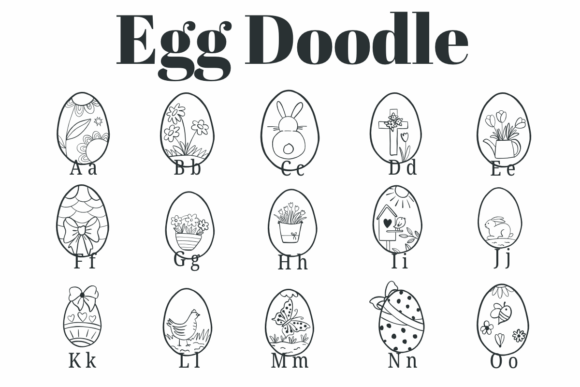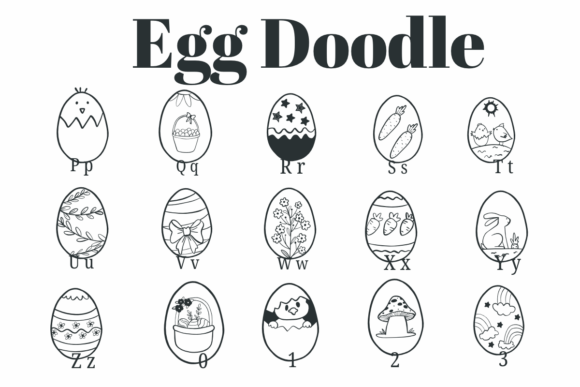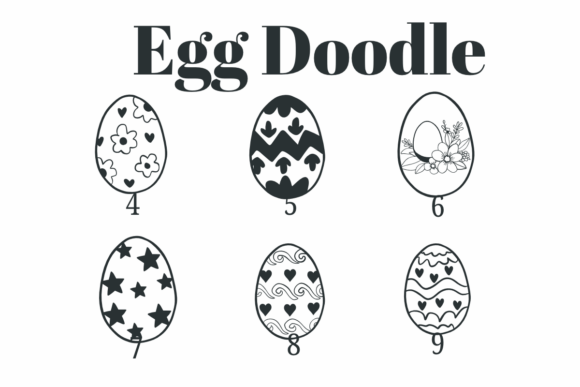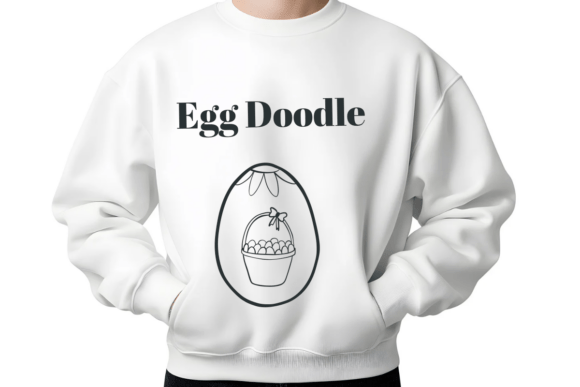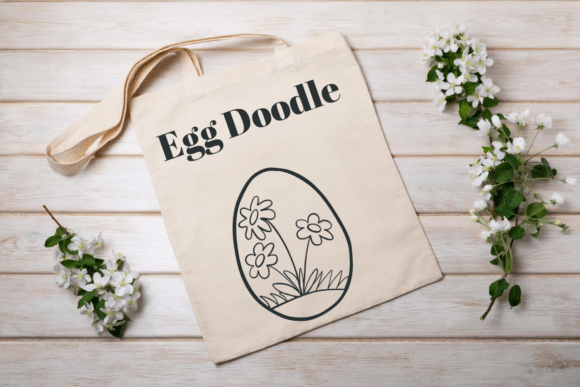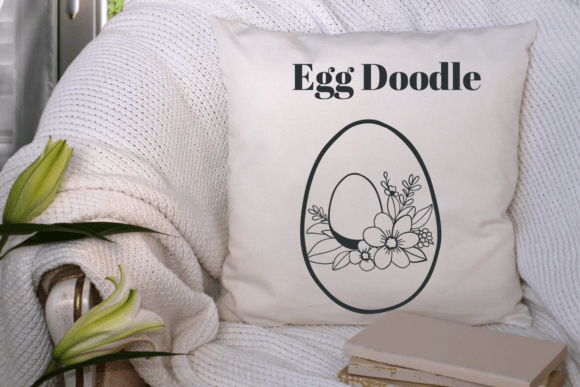
Egg Doodle Font: Unleash Your Creativity with this Fun Dingbats Font
Are you a designer, crafter, or DIY enthusiast looking for a unique and playful font to add some excitement to your projects? Look no further than the Egg Doodle Font! This fun dingbats font is perfect for anyone who wants to inject some personality and whimsy into their designs. In this article, we’ll explore the features and benefits of Egg Doodle, and show you how to make the most of this versatile font.
What is Egg Doodle Font?
Egg Doodle is a dingbats font that features a collection of playful and quirky illustrations, including eggs, animals, and other fun shapes. The font is designed to be easy to use and versatile, making it perfect for a wide range of projects, from crafting and scrapbooking to graphic design and digital art.
Key Features of Egg Doodle Font
- Fun and playful illustrations: Egg Doodle features a range of colorful and engaging illustrations, including eggs, animals, and other shapes.
- Versatile: Egg Doodle can be used for a wide range of projects, from digital art to crafting and scrapbooking.
- Scalable: The font is scalable, making it perfect for use in projects of all sizes.
How to Use Egg Doodle Font
- Scrapbooking: Add Egg Doodle illustrations to your scrapbook pages for a fun and playful touch.
- Graphic design: Use Egg Doodle to create eye-catching graphics and illustrations for your website, social media, or marketing materials.
- Crafting: Add Egg Doodle illustrations to your craft projects, such as cards, gift tags, and other DIY creations.
- Digital art: Use Egg Doodle to create unique and engaging digital art, such as illustrations and animations.
Benefits of Using Egg Doodle Font
So why choose Egg Doodle Font for your projects? Here are just a few benefits:
- Adds personality and whimsy: Egg Doodle illustrations are sure to add a touch of personality and whimsy to your projects.
- Versatile: Egg Doodle can be used for a wide range of projects, making it a great addition to your font library.
Tips and Tricks for Getting the Most out of Egg Doodle Font
Here are a few tips and tricks for getting the most out of Egg Doodle Font:
- Experiment with different colors: Egg Doodle illustrations look great in a range of colors, so don’t be afraid to experiment and find the perfect hue for your project.
- Combine with other fonts: Egg Doodle pairs well with a range of other fonts, so try combining it with your favorite fonts for a unique look.
- Use for decorative elements: Egg Doodle illustrations are perfect for use as decorative elements, such as borders, frames, and other design elements.